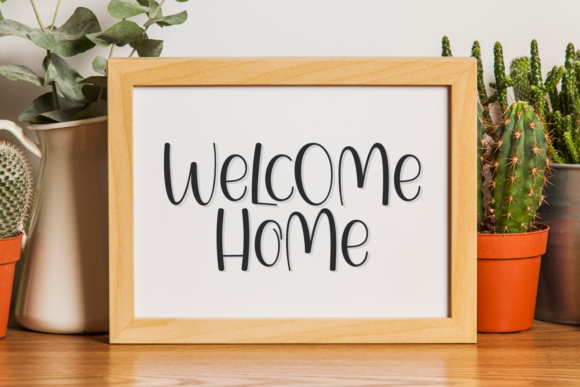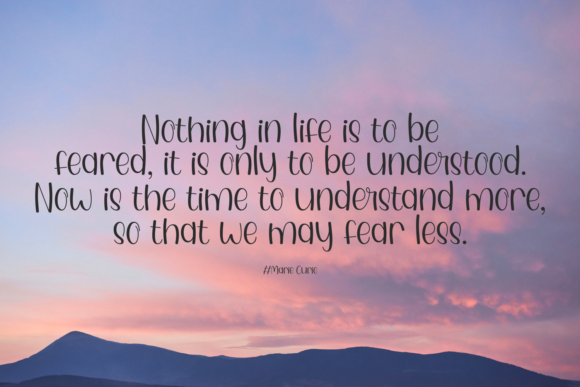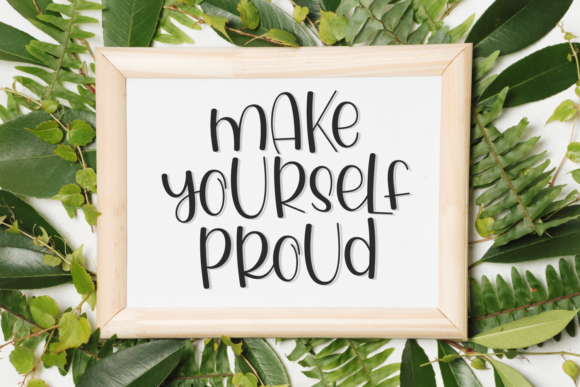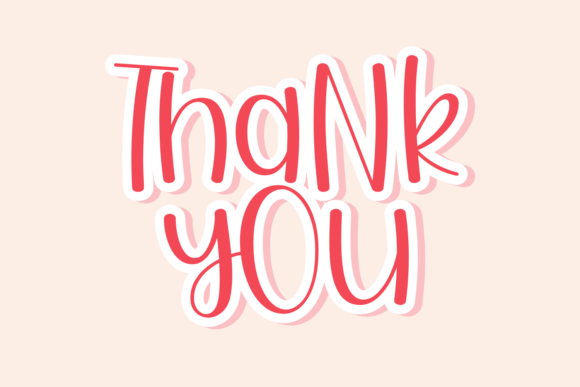
Introducing Always Remember Font: The Perfect Addition to Your Design Arsenal
Are you tired of using the same old fonts in your designs? Look no further! Always Remember Font is a game-changer for designers and crafters alike. This relaxed and playful display font is perfect for adding a jolly, light touch to your creations. In this article, we’ll dive into the world of Always Remember Font and explore its features, uses, and benefits.
A Relaxed and Playful Display Font
Always Remember Font is a unique and eye-catching display font that’s perfect for making a statement. Its relaxed and playful vibe makes it ideal for designs that require a friendly and approachable feel. Whether you’re working on a logo, poster, or social media graphic, this font is sure to add a touch of whimsy and fun to your project.
One of the best things about Always Remember Font is its versatility. You can use it in a variety of design ideas, from:
- Party invitations and event flyers
- Logo designs and branding materials
- Posters and print advertisements
The possibilities are endless, and the font’s playful nature makes it easy to get creative and experiment with different design ideas.
Key Features of Always Remember Font
So, what makes Always Remember Font so special? Here are some of its key features:
- Unique and eye-catching design: The font’s playful and relaxed design makes it stand out from more traditional fonts.
- High-quality and clear: The font is designed to be clear and legible, even at smaller sizes.
- Easy to read: The font’s simple and clean design makes it easy to read, even for longer blocks of text.
- Versatile: The font can be used in a variety of design projects, from logos to posters and more.
Tips for Using Always Remember Font
Now that you know more about Always Remember Font, here are some tips for using it in your designs:
- Pair it with other fonts: Always Remember Font pairs well with other fonts, so don’t be afraid to experiment with different combinations.
- Use it for headings and titles: The font’s playful nature makes it perfect for headings and titles, where you want to make a statement.
- Experiment with colors: Always Remember Font looks great in a variety of colors, so don’t be afraid to try out different hues and shades.
- Keep it simple: While the font is playful, it’s still easy to read. Keep your design simple and clean to make the most of the font.
Get Creative with Always Remember Font
Always Remember Font is a versatile and fun font that’s perfect for designers and crafters alike. Whether you’re working on a logo, poster, or social media graphic, this font is sure to add a touch of whimsy and fun to your project. So why not give it a try? Get creative with Always Remember Font and see what amazing designs you can come up with!
In conclusion, Always Remember Font is a relaxed and playful display font that’s perfect for adding a jolly, light touch to your designs. With its unique and eye-catching design, high-quality and clear texture, and versatility, this font is a must-have for designers and crafters alike. So why not give it a try? Download Always Remember Font today and start creating your cheeriest designs yet!